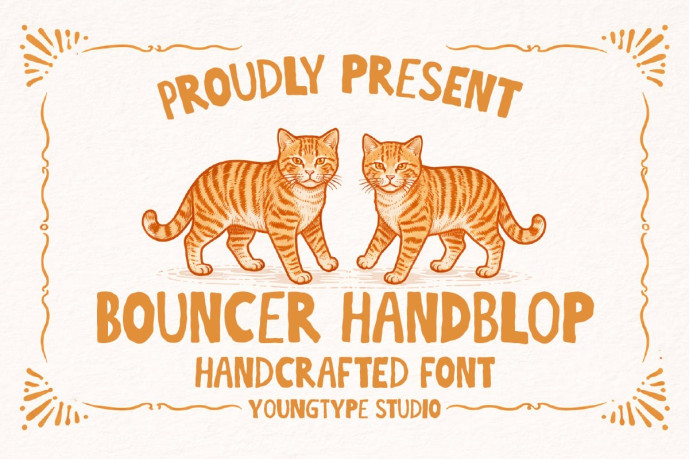
Bouncer Handblop Font
Designer: Youngtype
Bouncer Handblop Font is a bold and expressive handcrafted display typeface designed to capture the warmth, charm, and personality of traditional hand-lettering. Inspired by vintage signage, playful branding, and artisanal typography, this font brings a lively and approachable character to any creative project.
The letterforms feature soft, rounded edges and slightly irregular strokes that mimic the natural flow of hand-drawn lettering. This organic quality gives Bouncer Handblop a friendly and authentic feel while maintaining strong visual presence and readability. Each character carries subtle imperfections that add charm and individuality, making the font feel alive and full of personality.